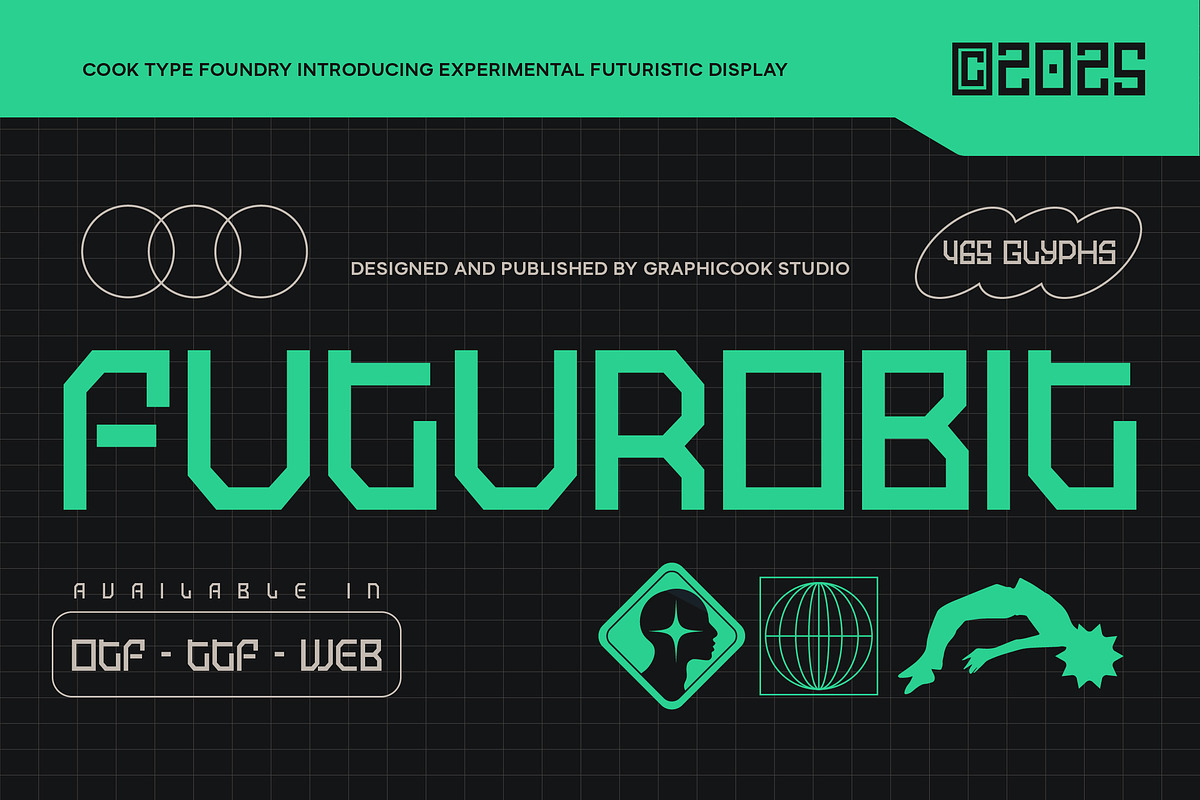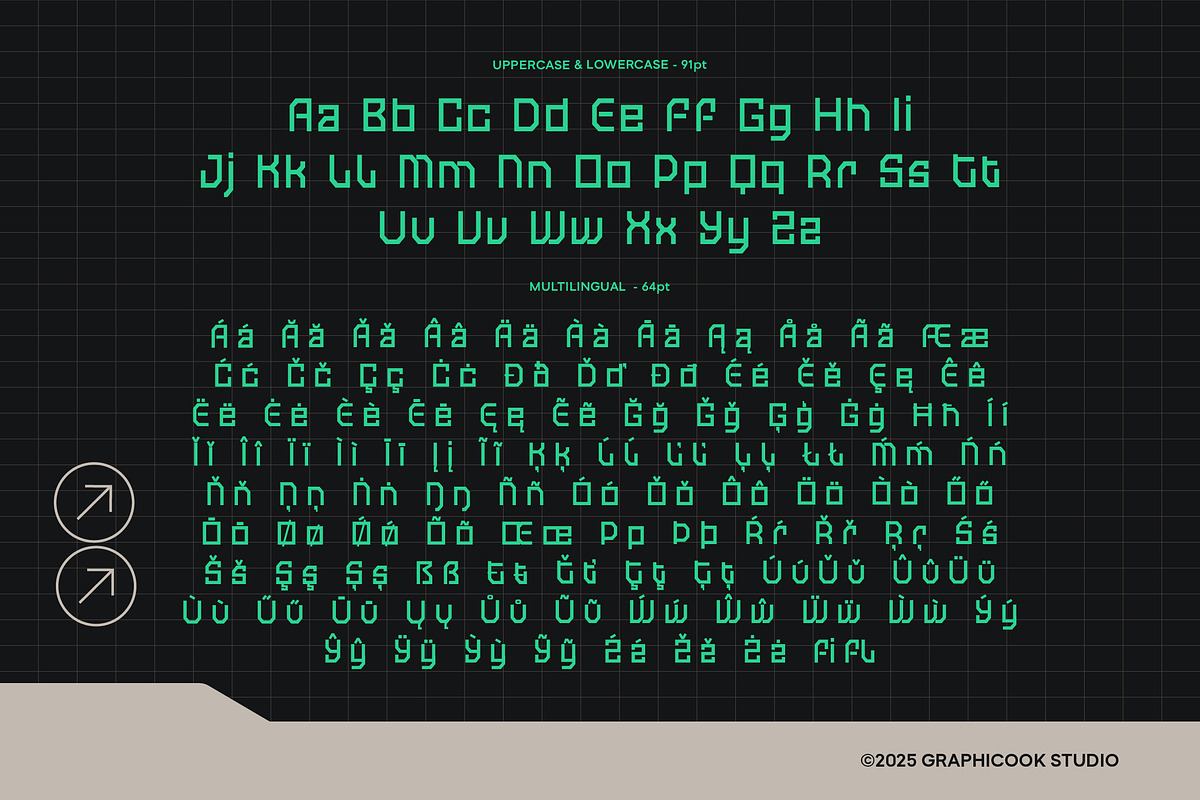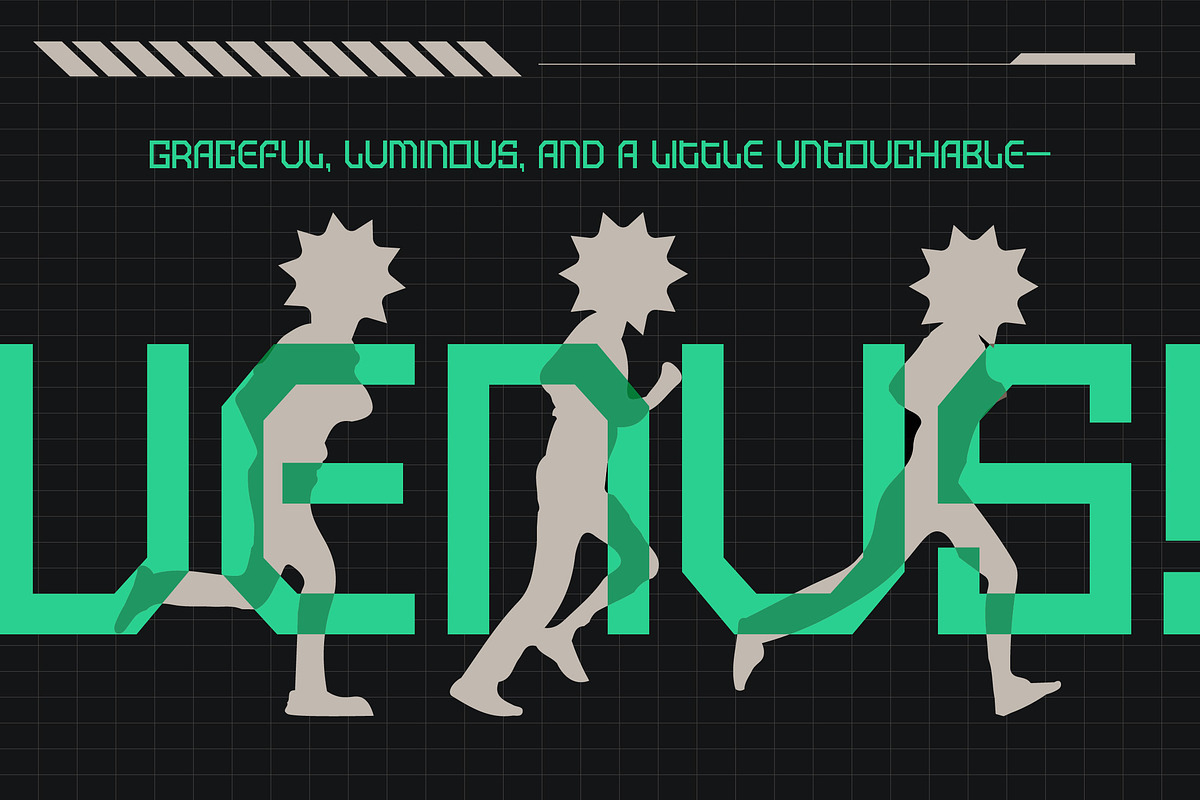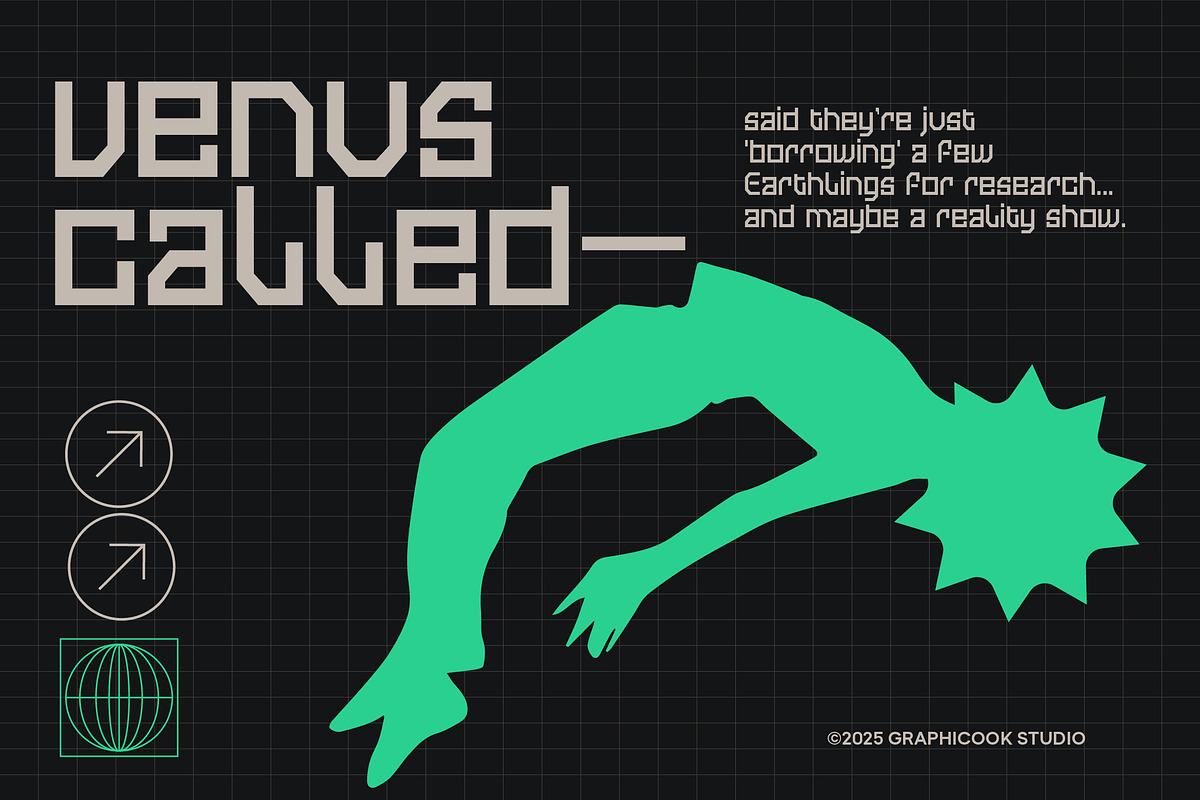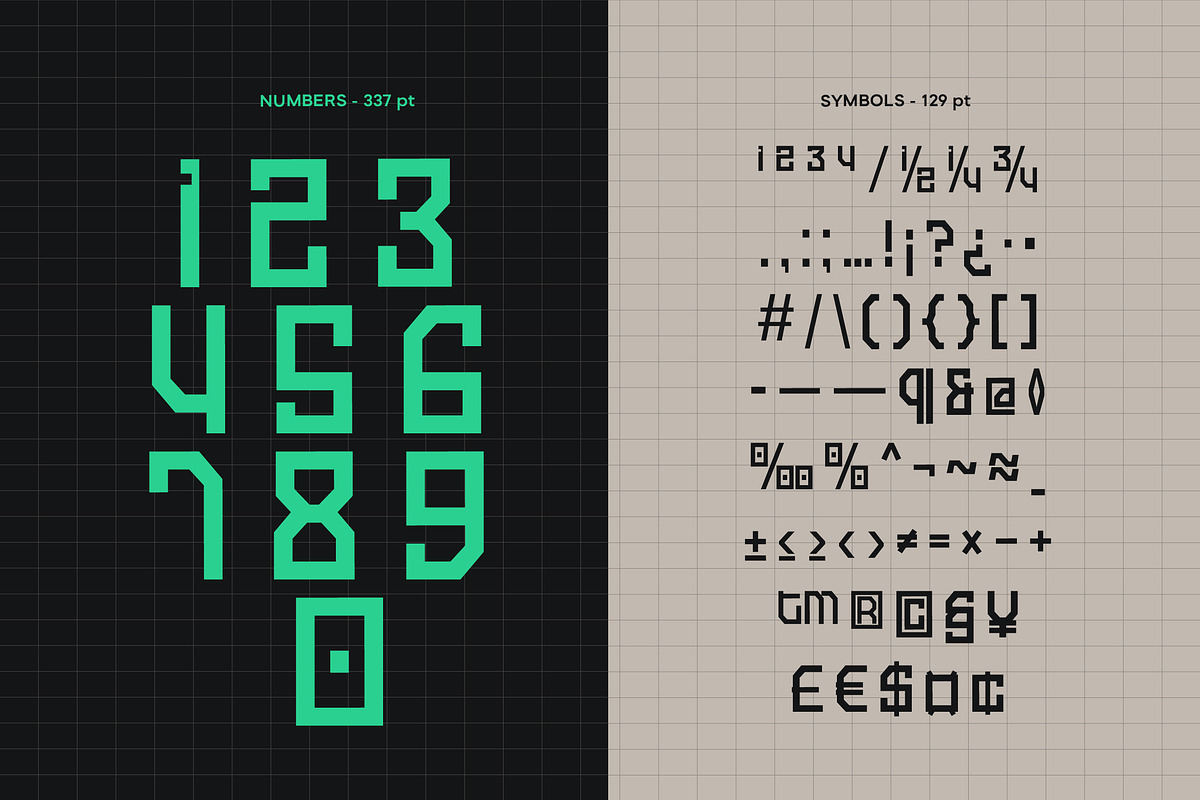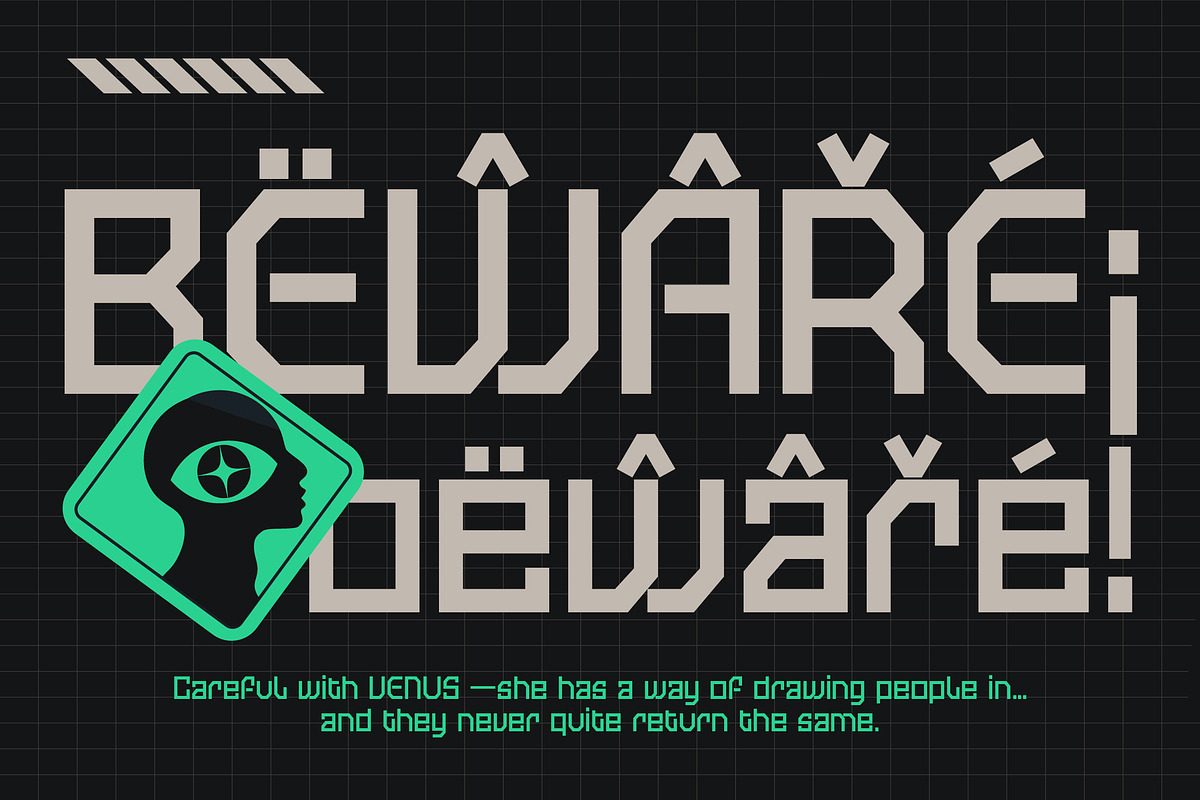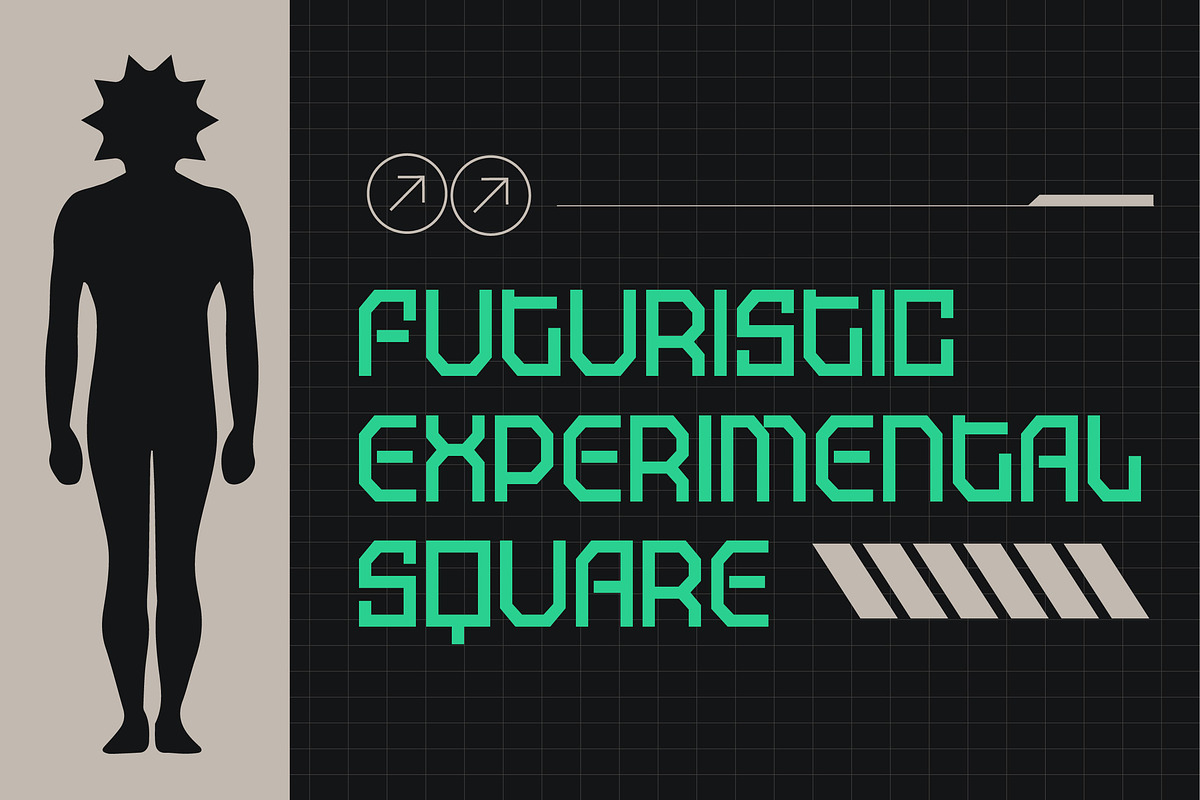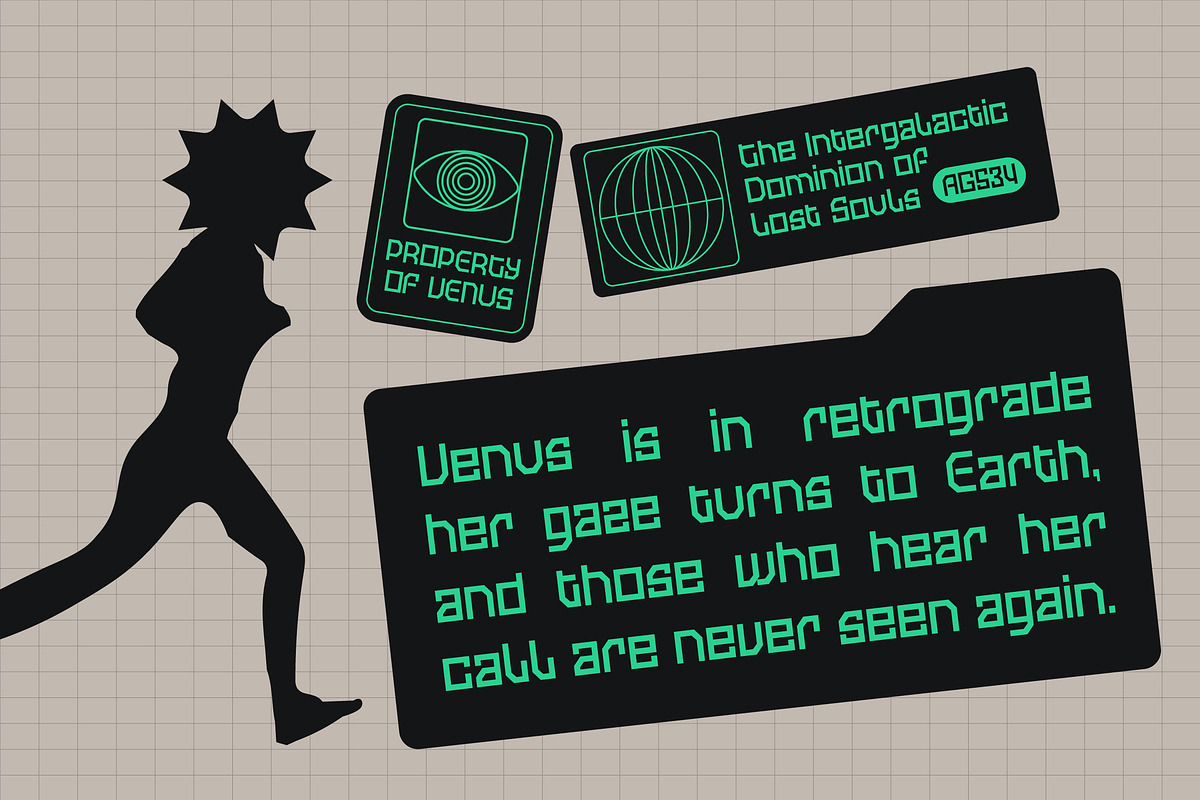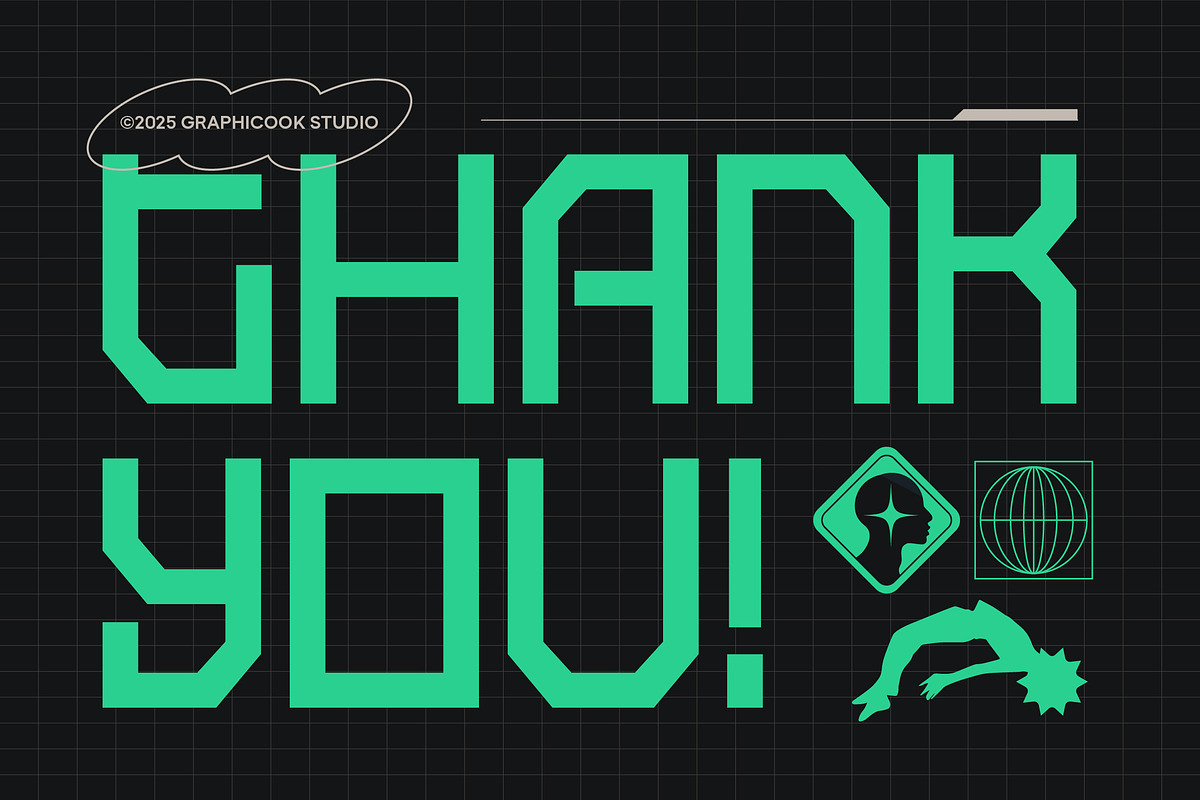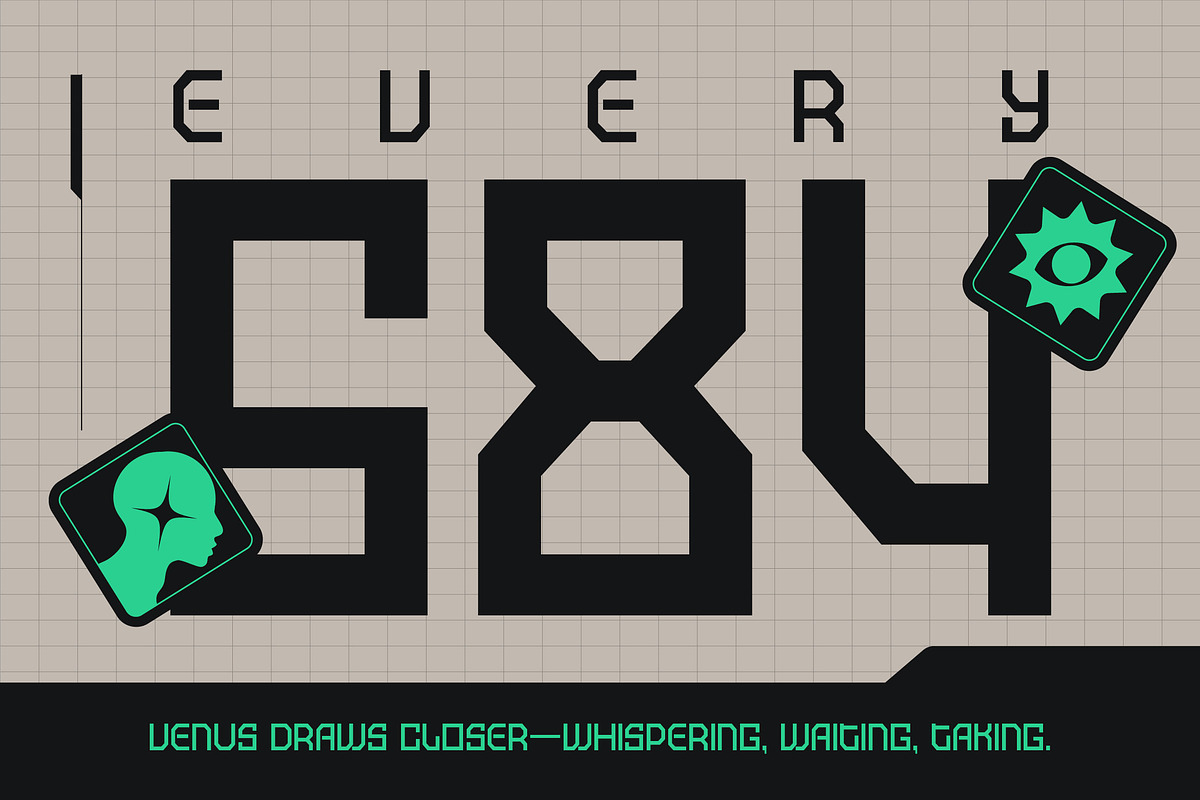
Futurobit
Futurobit is an experimental sans-serif font with square letterforms that deliver a modern, futuristic, and striking look, perfect for tech designs, posters, or games.
Futurobit is perfect for headlines, logotypes, magazines, packaging, quotes, movies, games, cover albums, book covers, and flyers, it's a perfect solution for creating eye-catching designs that stand out in any context.